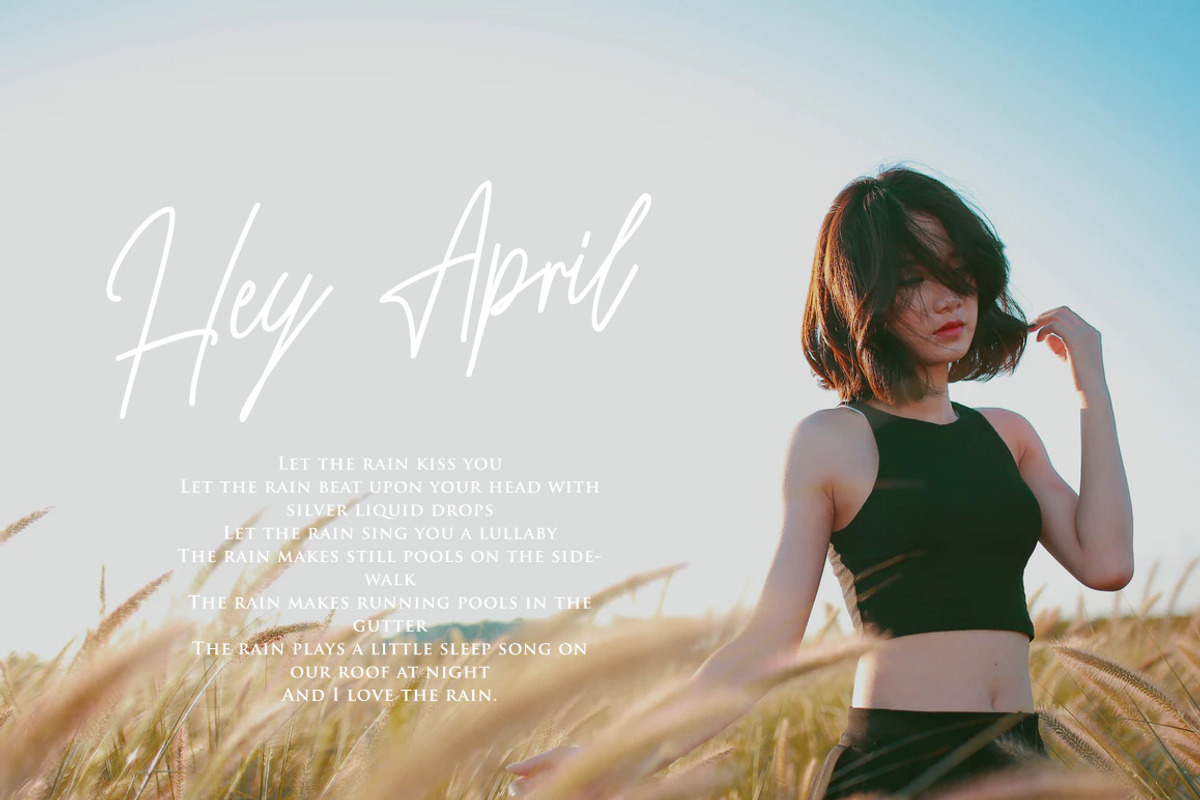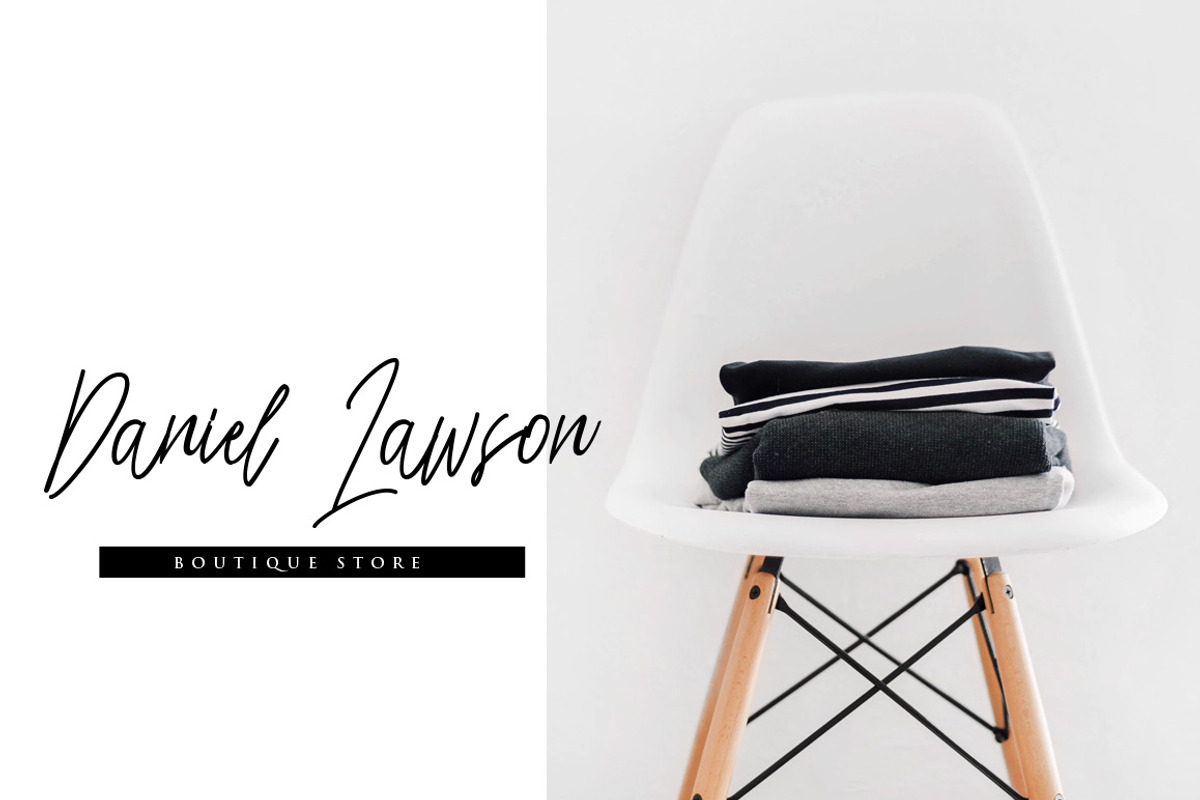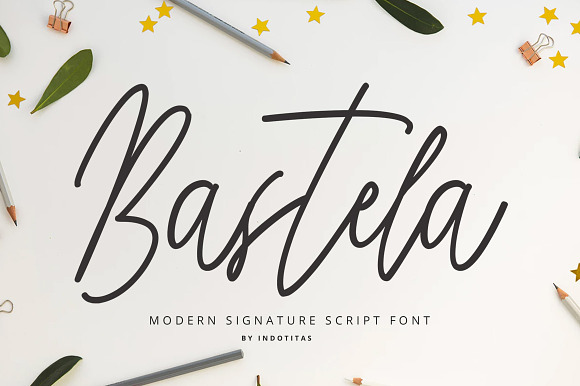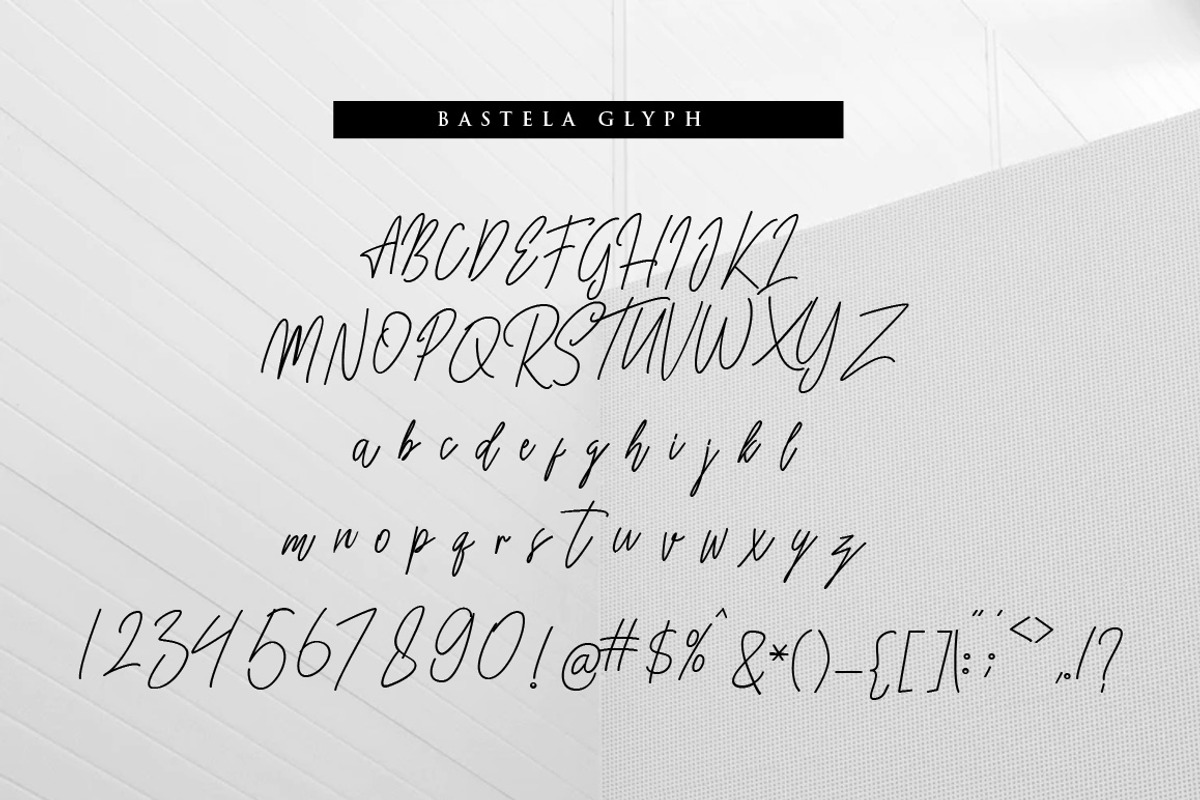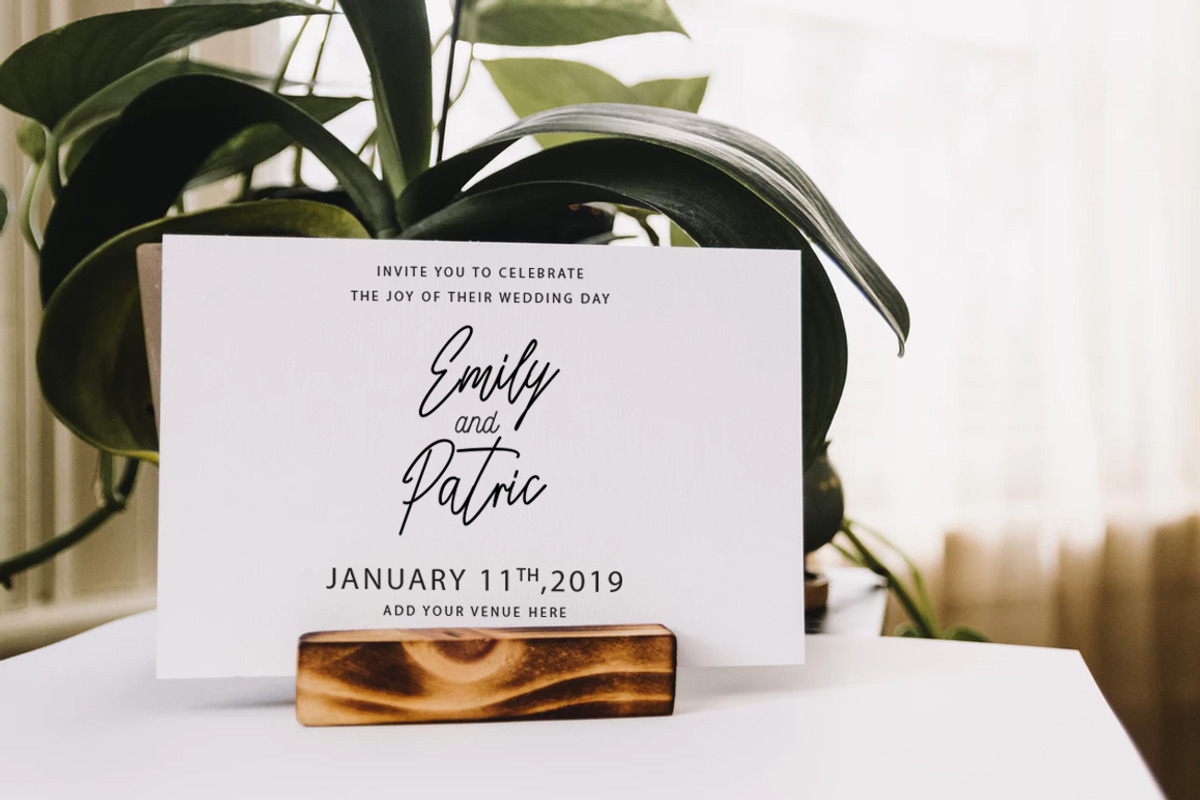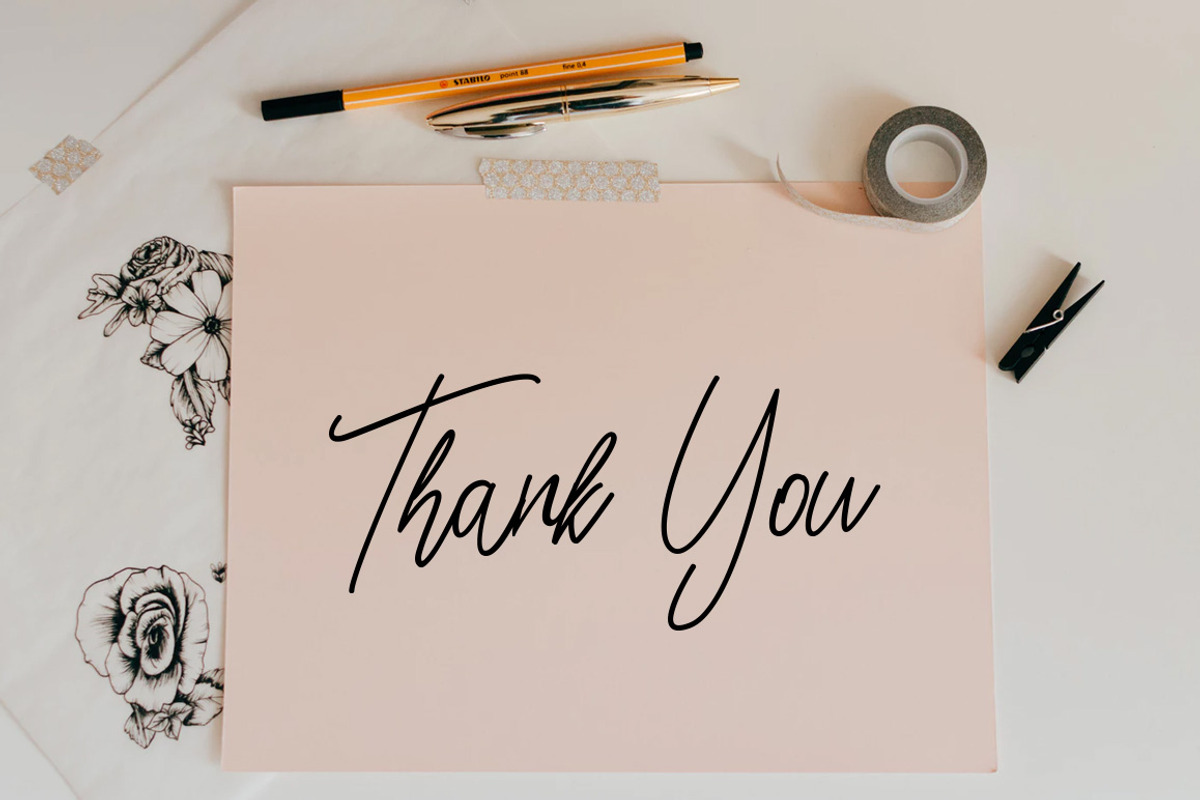
Bastela Signature Font
Introducing to Bastela Signature Font
Bastela is signature font script, ideal for use in projects that need an organic and natural style. This font is great for logo, logotype, branding,wedding, fashion, label, book cover, t-shirt, instagram post, and other, and can add an elegant and classy look to your work.
Basic Latin A-Z and a-z, Numbers, & Symbols
Why Bastela Signature Font is worth a look